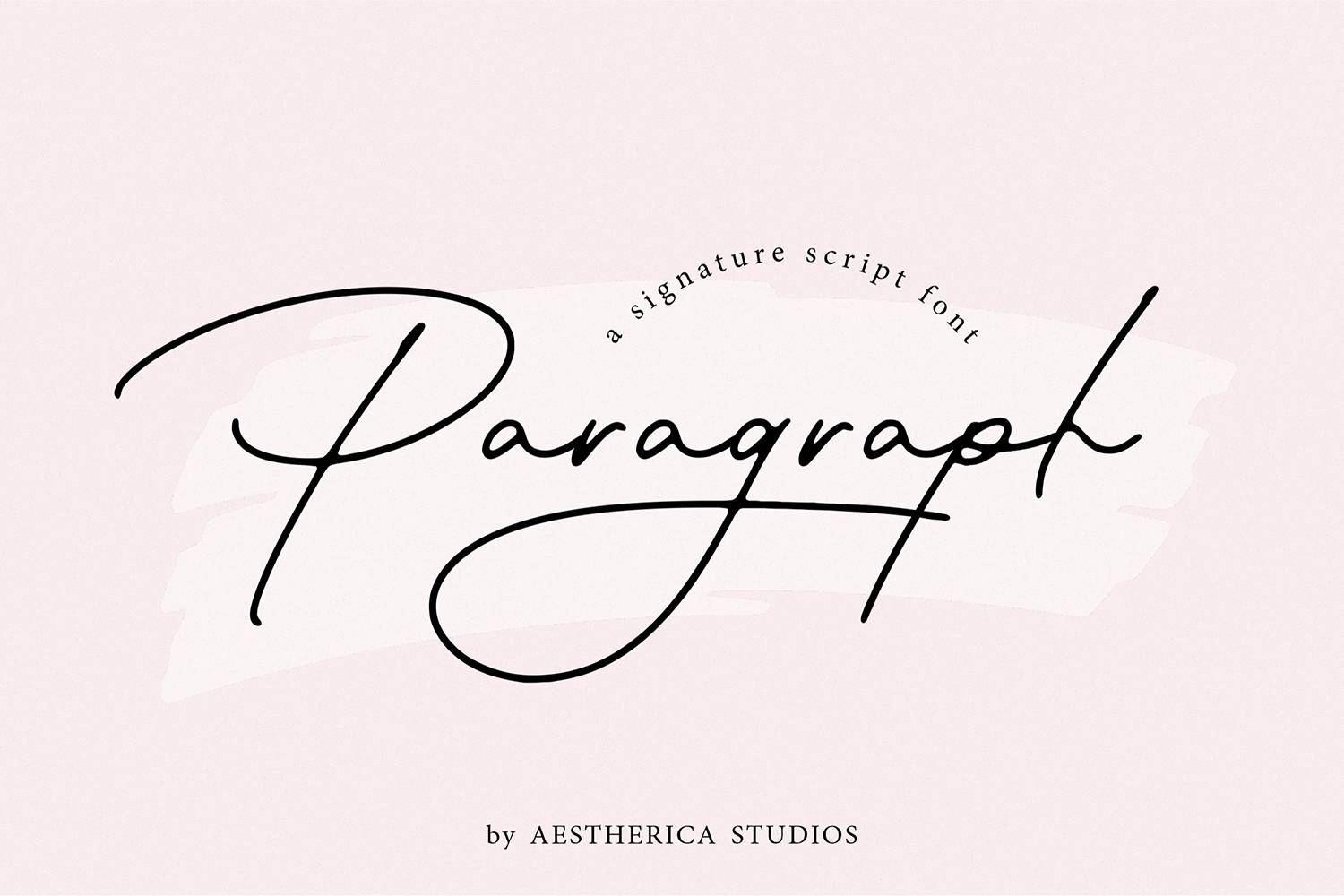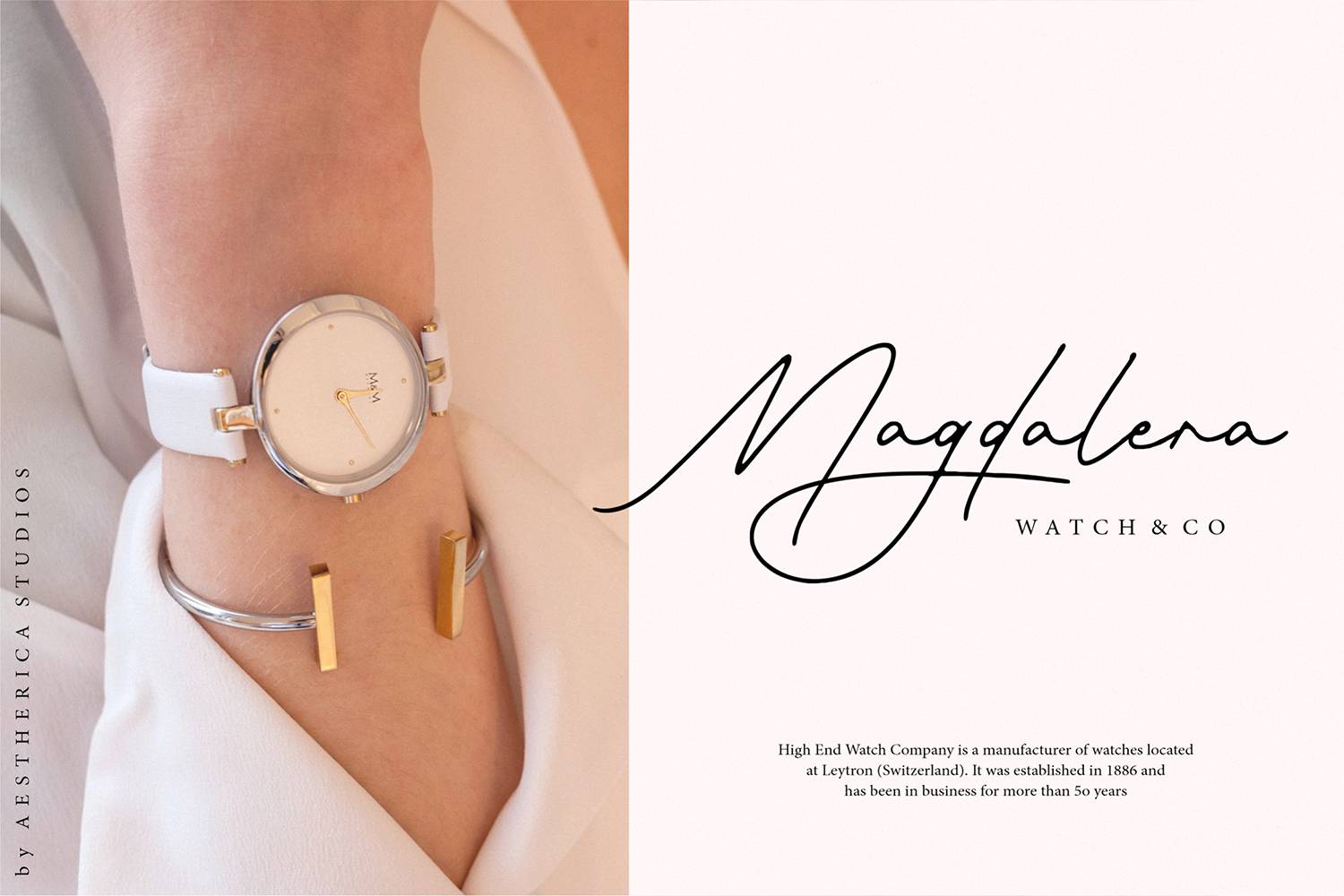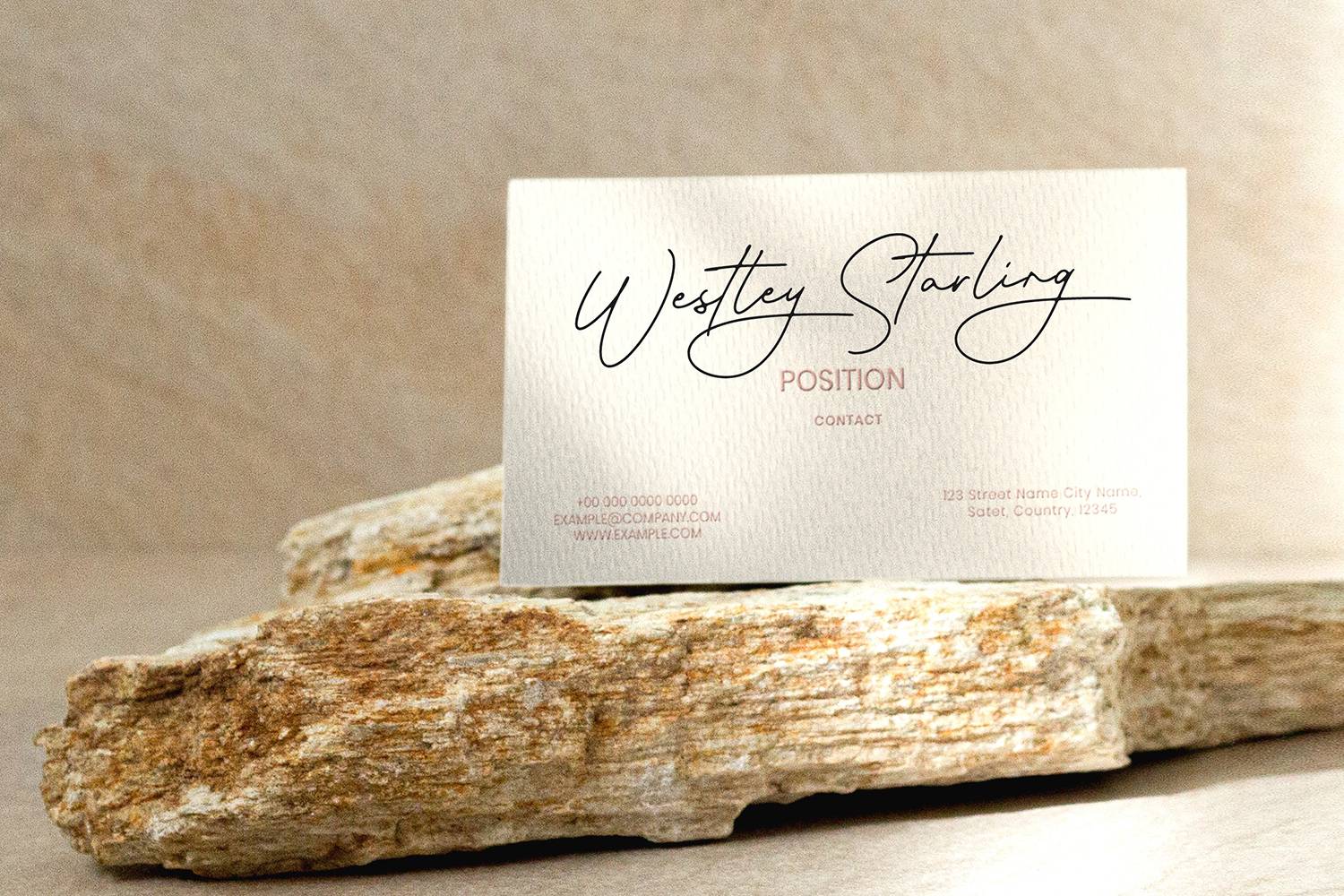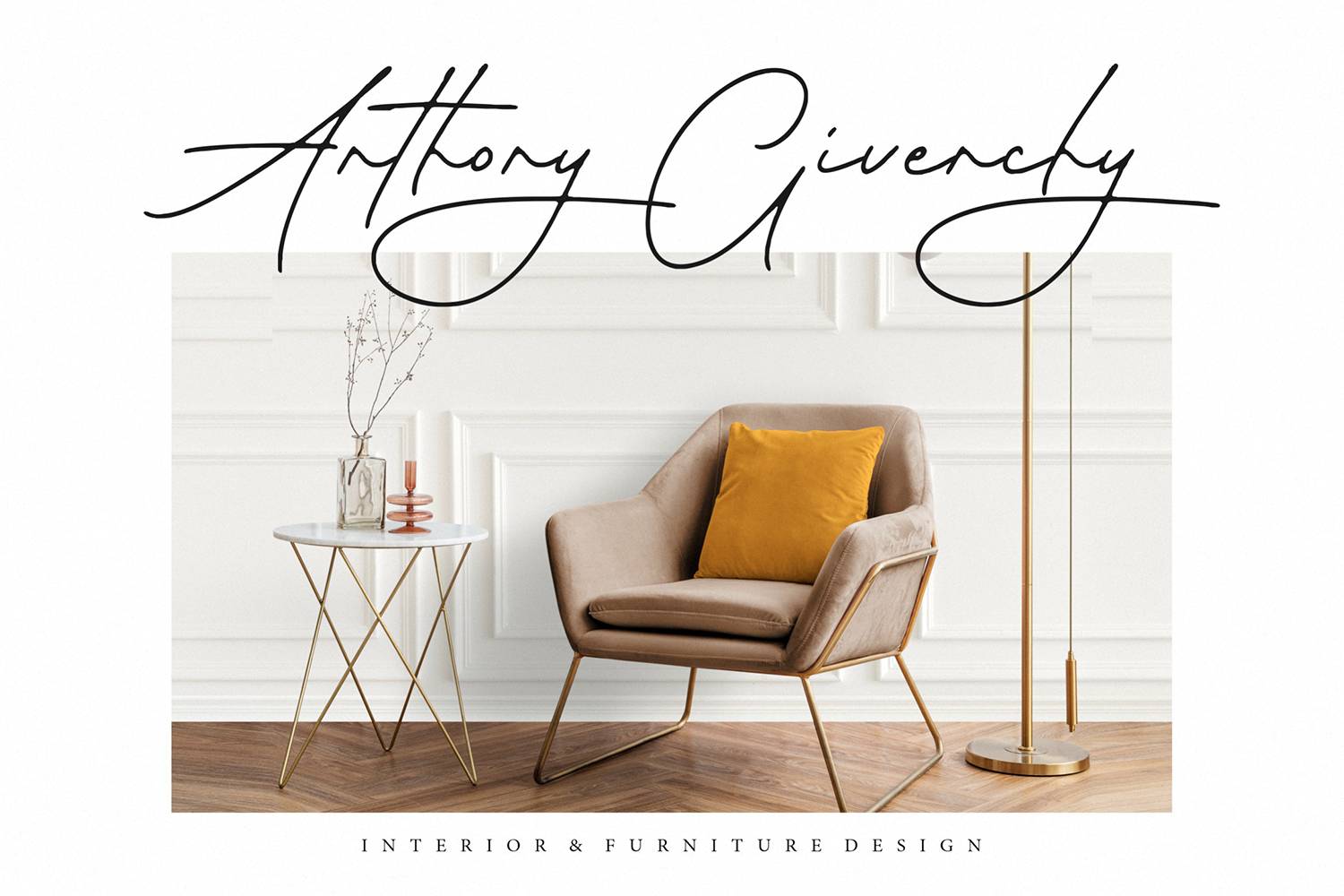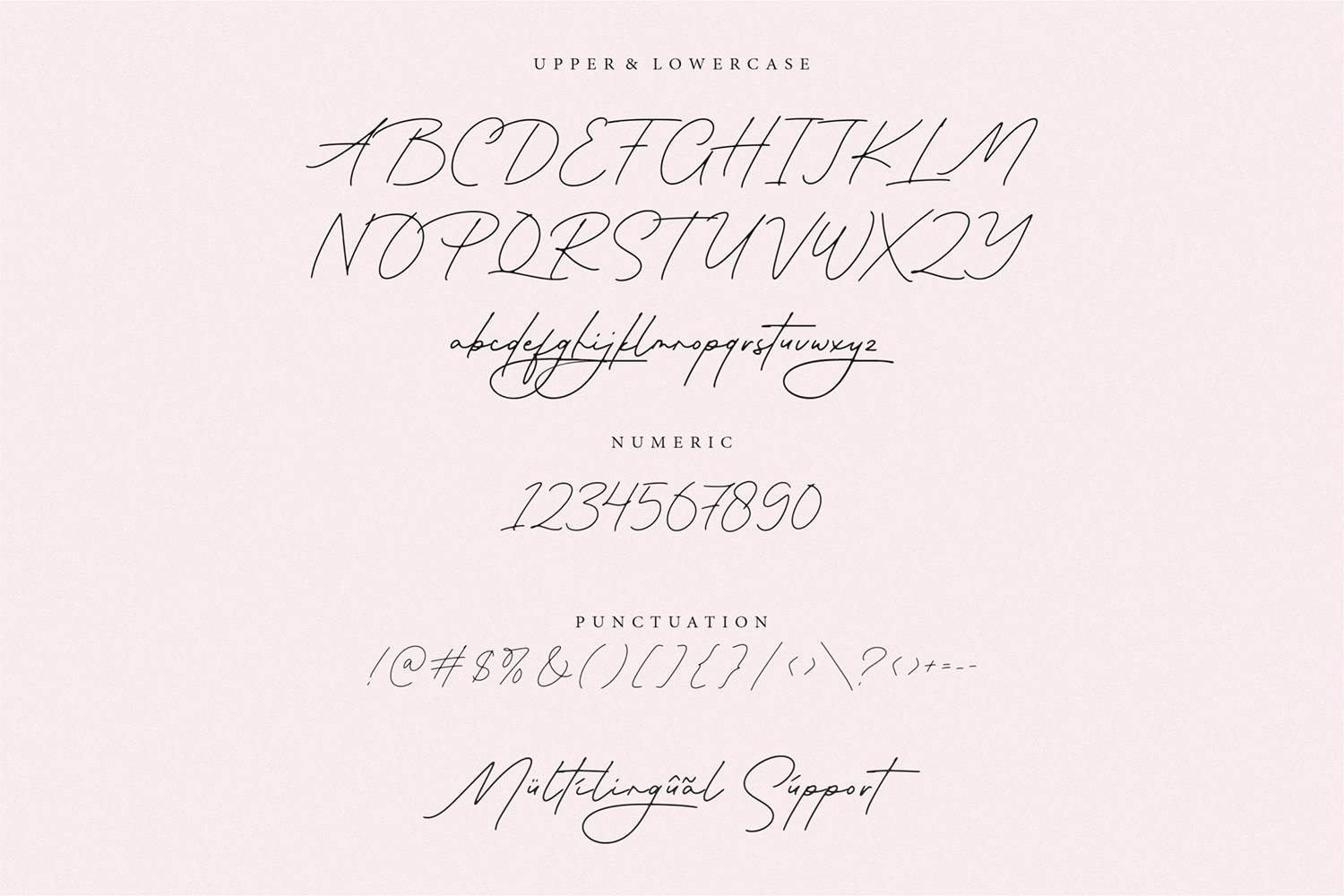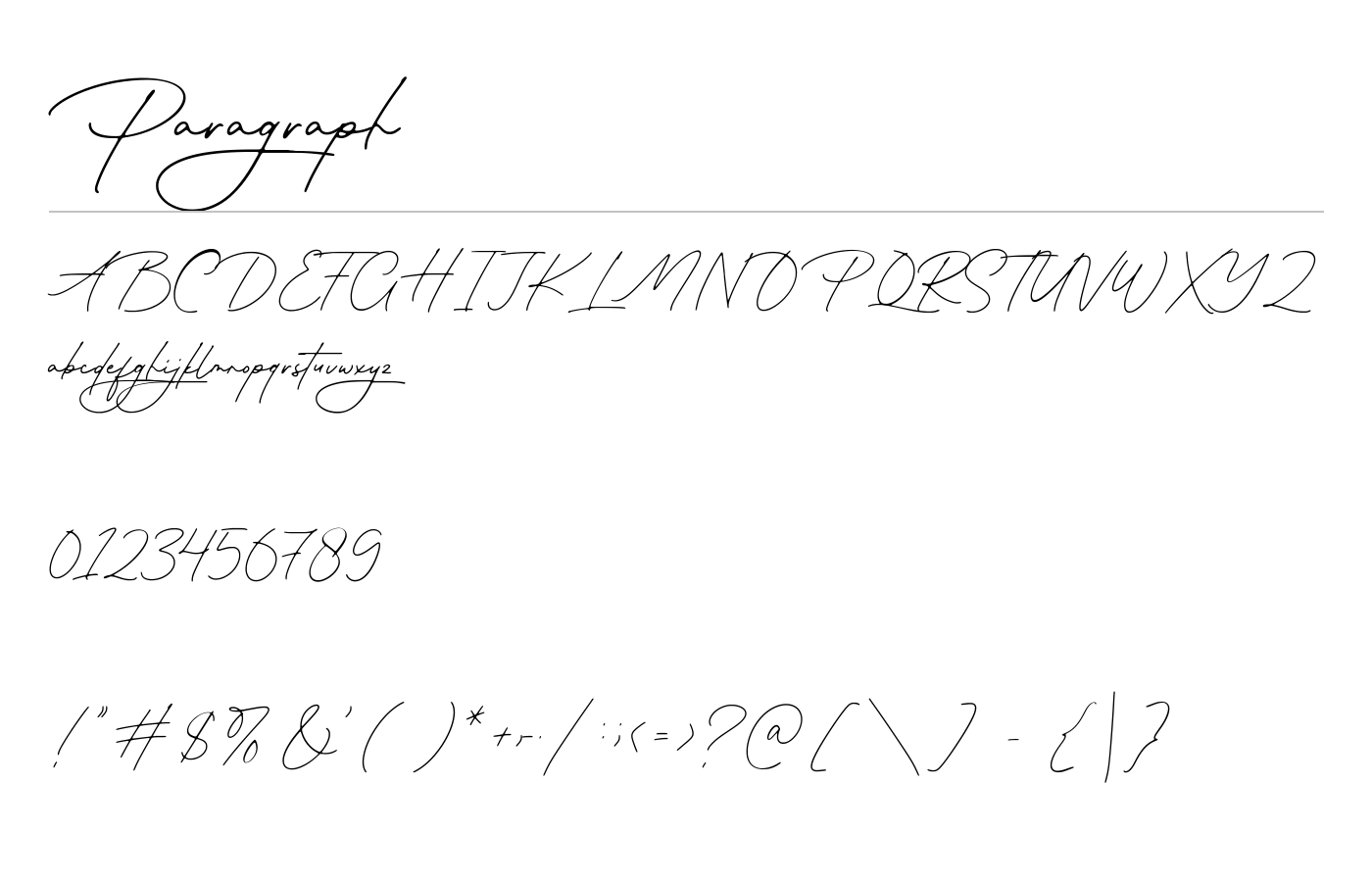
Paragraph Font is a delicate, elegant script typeface with slender, flowing strokes that mimic refined handwriting. Its light weight and graceful curves make it ideal for sophisticated branding, invitations, and stylish headlines where a personal, artistic touch is desired. This font conveys a sense of elegance and charm, perfect for creative projects that need a subtle but distinctive flair.
Paragraph Font
About Paragraph Font
| Font family | Paragraph Font |